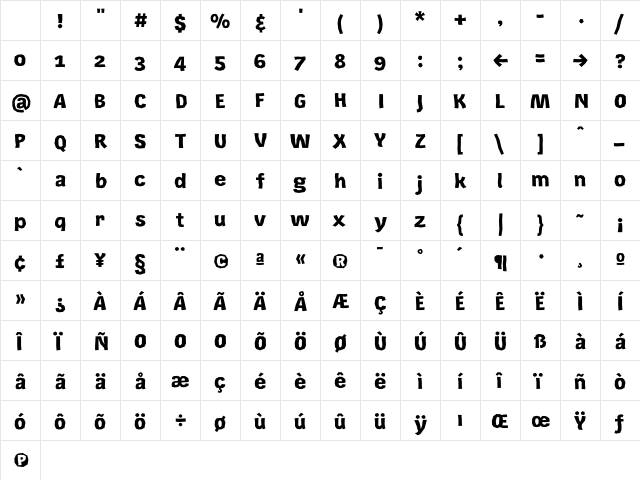
Complete Rekord Black glyph index. Displaying only characters natively supported by Rekord Black font.
Rekord is a composed and adaptable typeface that performs quietly and consistently across a wide range of design contexts.